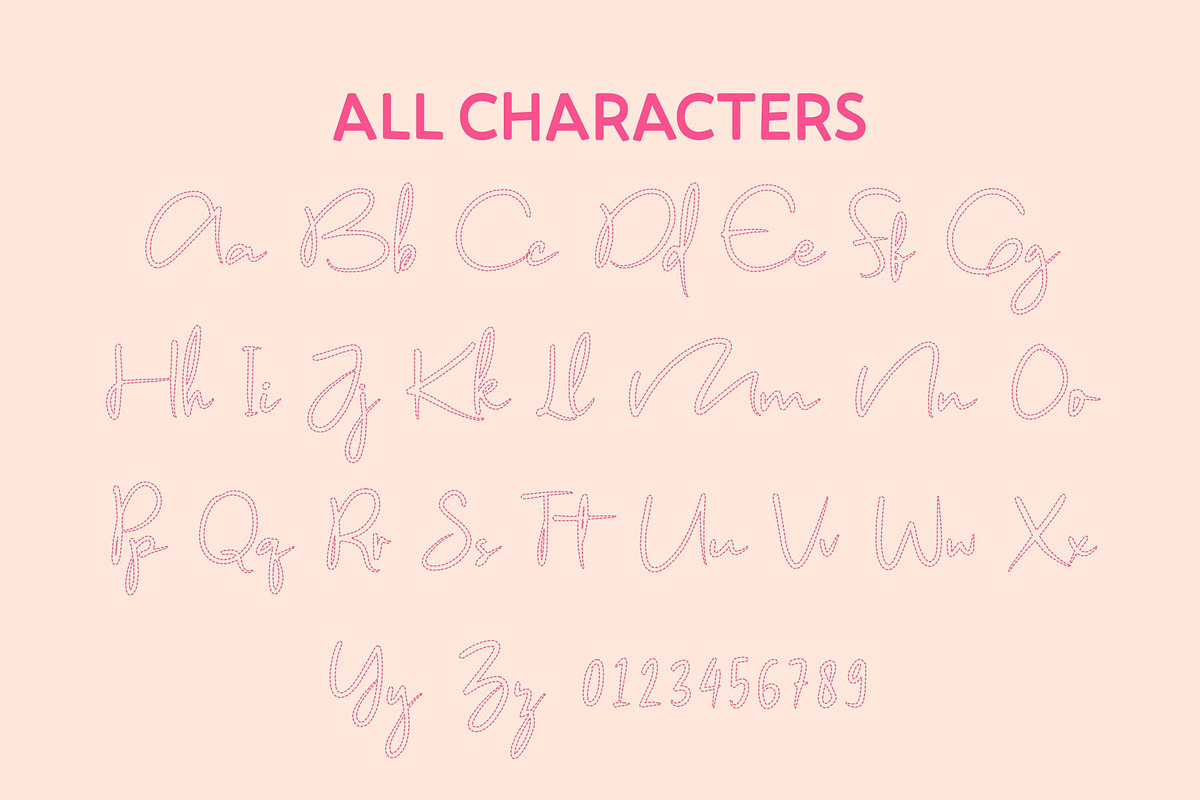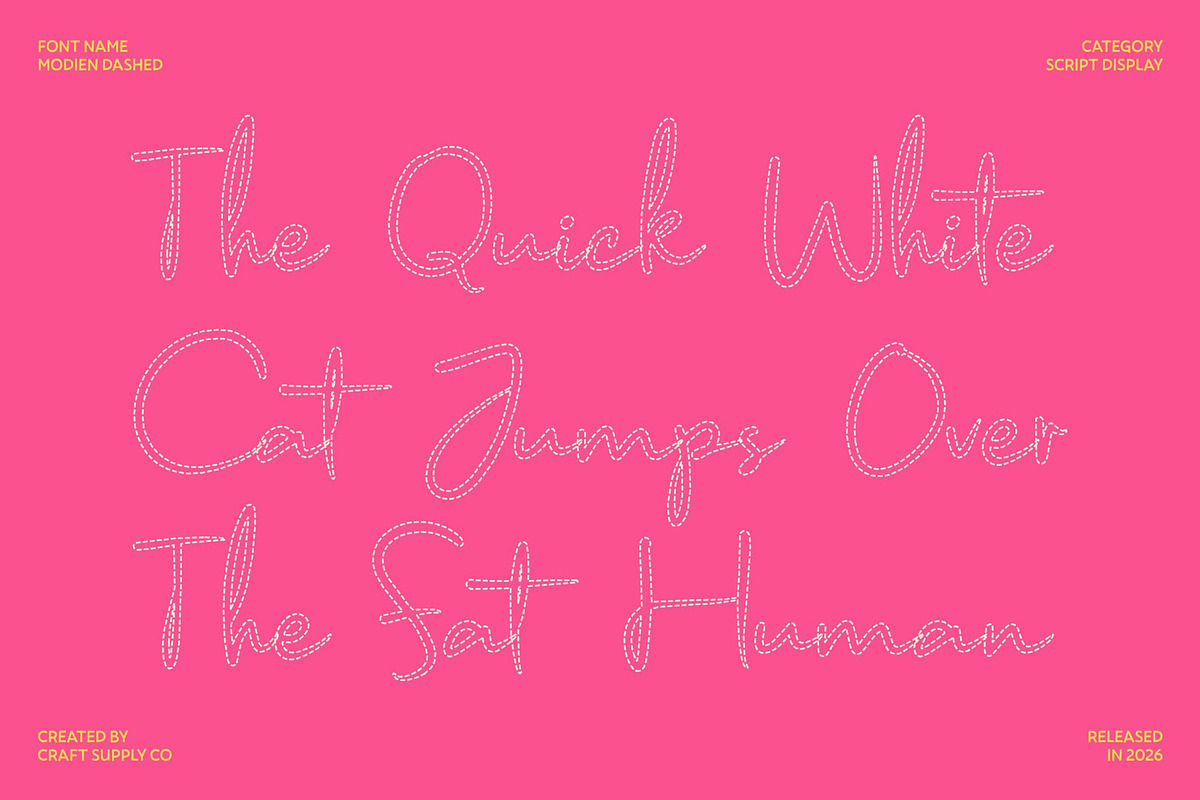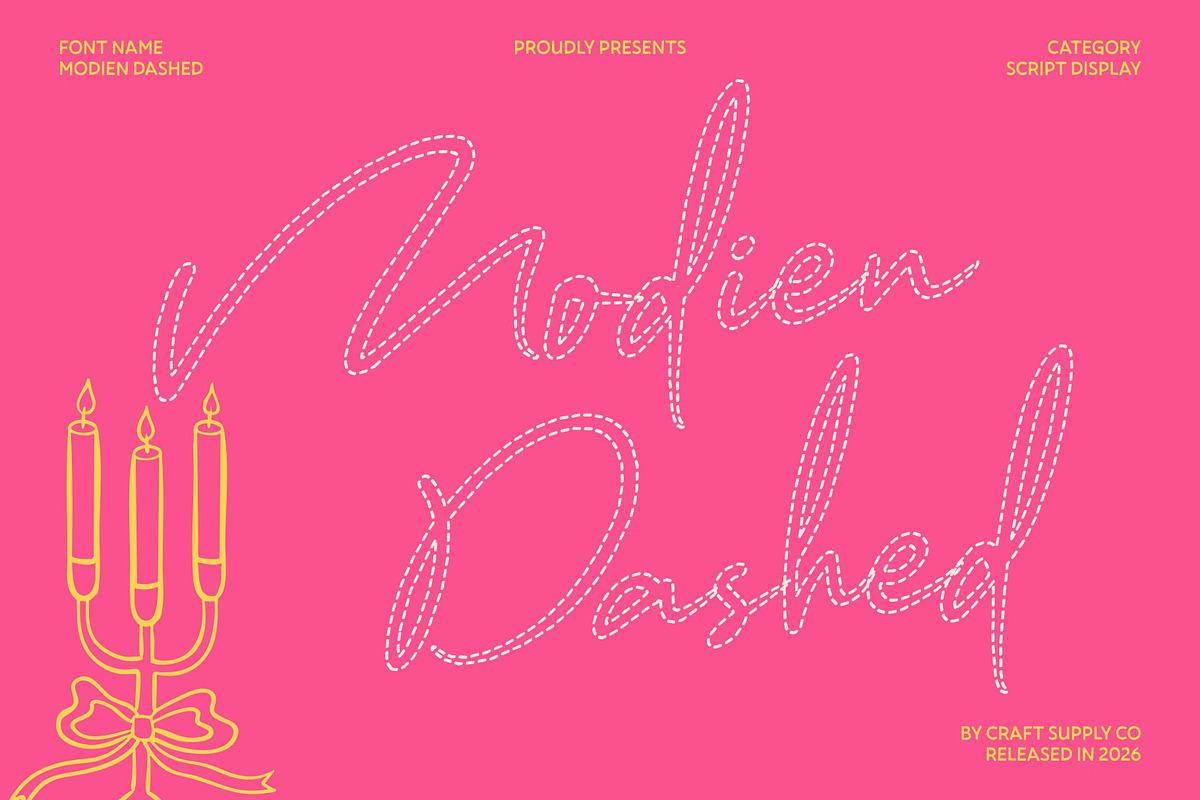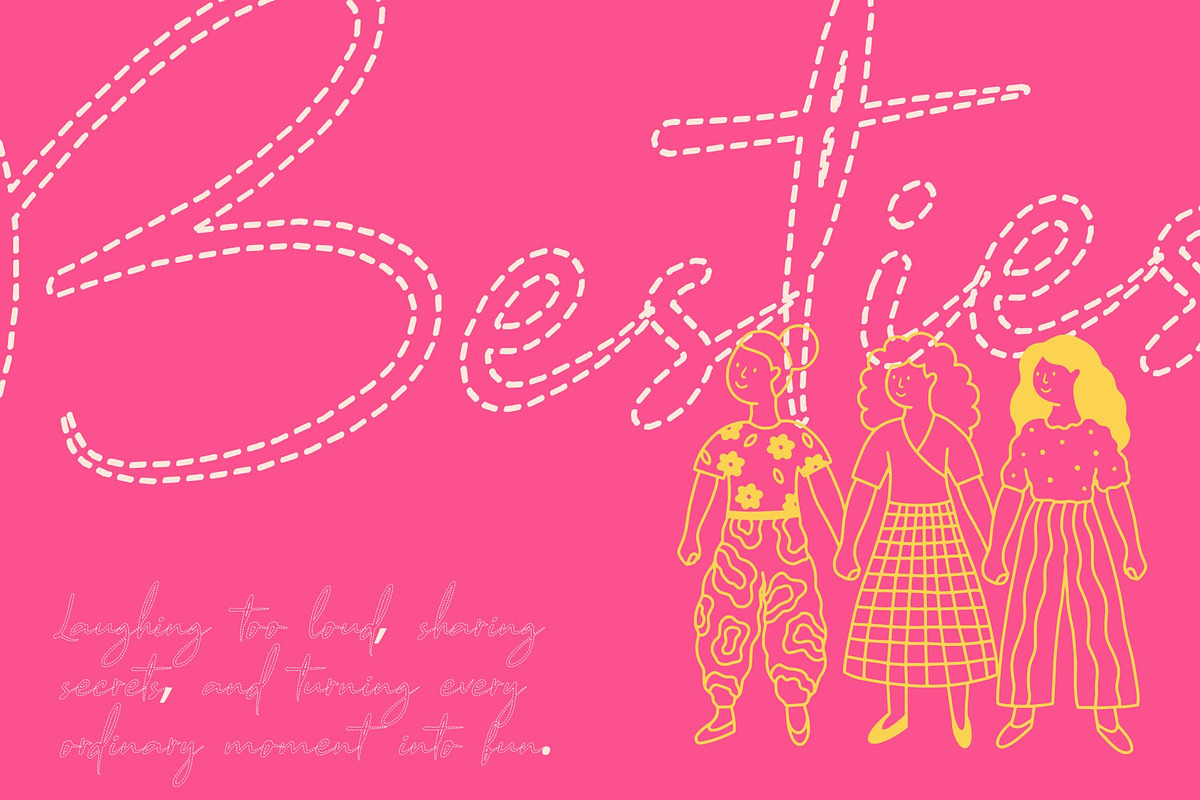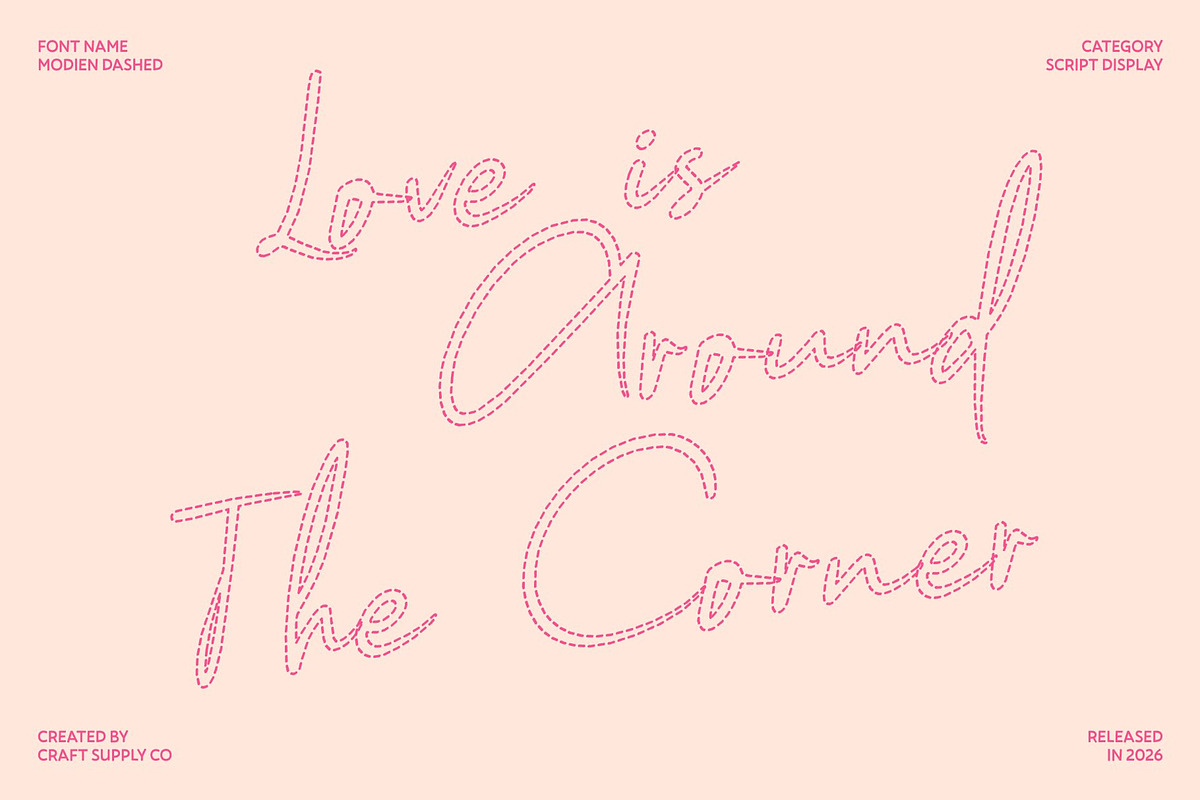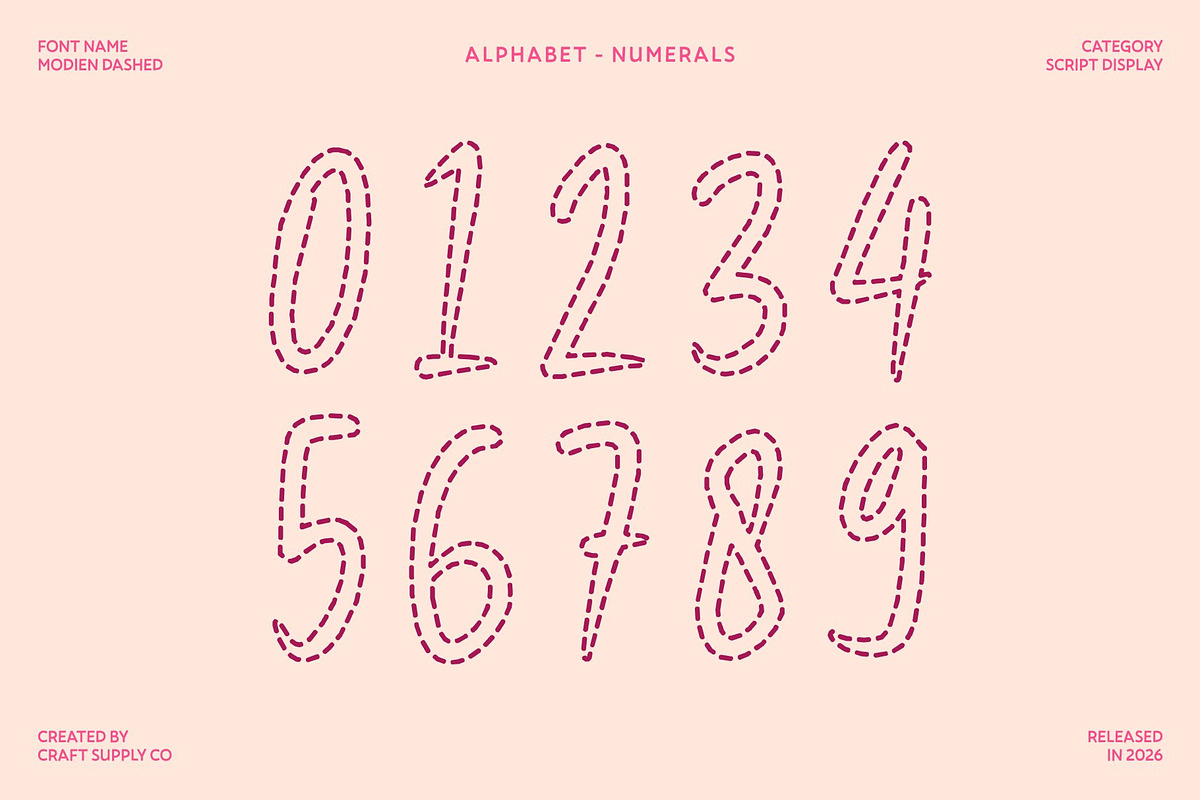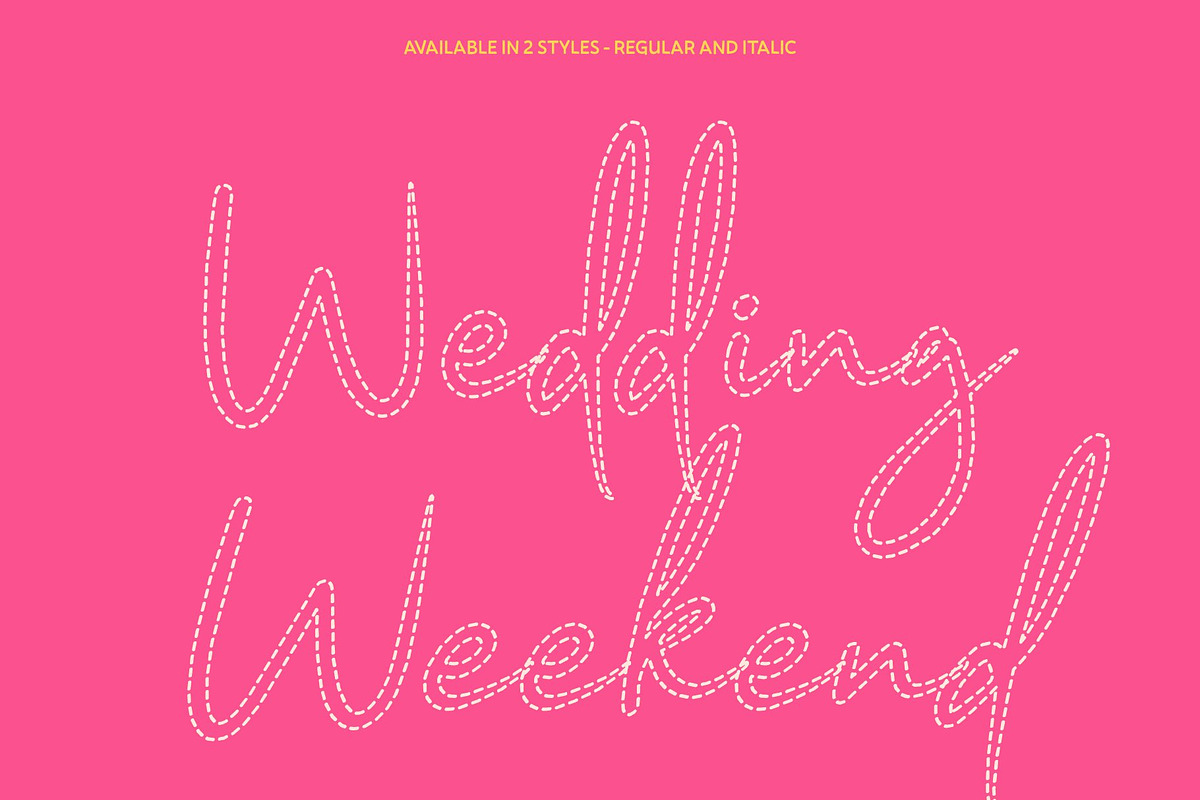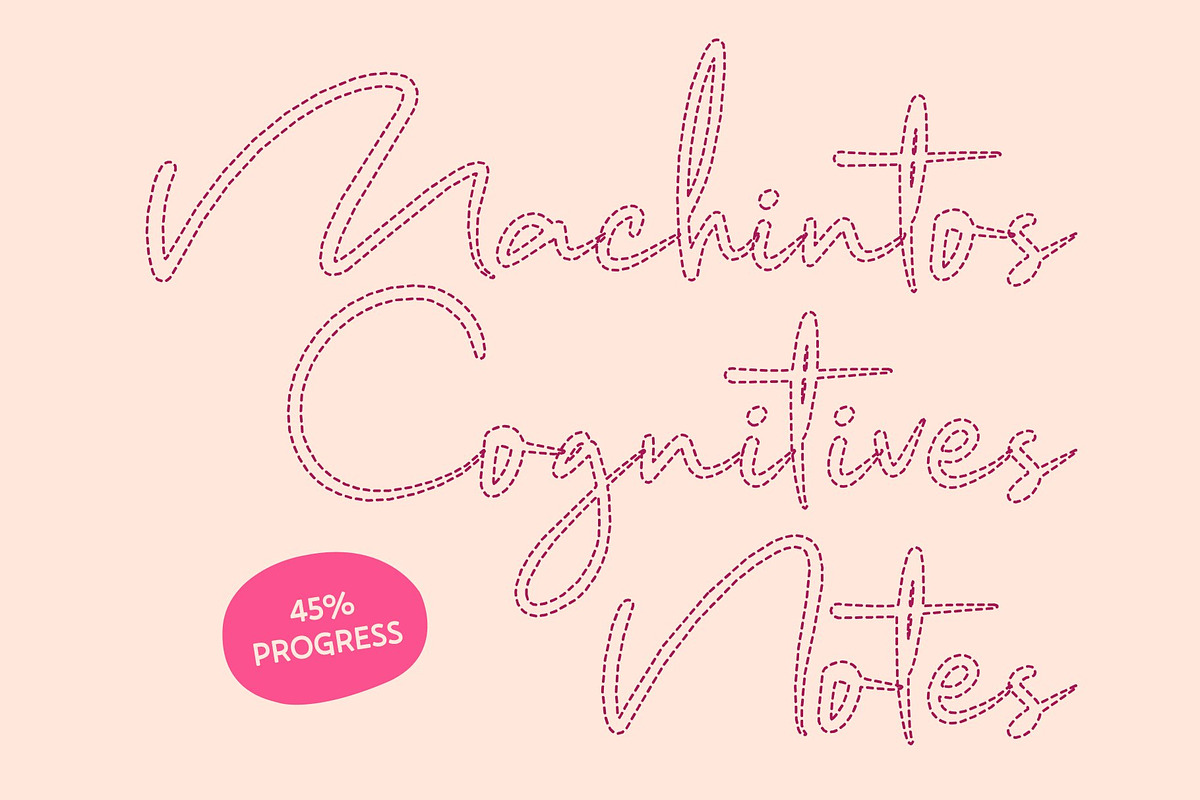
Modien Dashed
Modien Dashed – Stylish Handwritten Font
Authentic Handwriting with Modern Elegance This is a stylish handwritten script font inspired by the natural expression of real handwriting. Its smooth strokes and organic flow create a warm, personal feel while maintaining a polished and contemporary appearance, perfect for designs that aim to look chic and sophisticated.
Perfect for Fashion and Lifestyle Branding This font works beautifully for fashion labels, e-commerce brands, trend blogs, wedding boutiques, and businesses that want to present an upscale and stylish identity. Its refined handwritten style adds personality and elegance while remaining versatile and easy to use.
Versatile for Creative and Promotional Designs This font is ideal for logos, greeting cards, quotes, posters, branding materials, name cards, stationery, design titles, blog headers, art quotes, and typography artwork. The fluid script style enhances both digital and print layouts with a graceful and trendy touch.
Ideal for Hand-Drawn and DIY Inspired Projects Perfect for modern envelope lettering, watercolor themes, craft designs, book titles, and social media visuals, this font brings a fashionable handwritten aesthetic that makes any project feel beautiful, personal, and memorable.
Modien Dashed Regular
Modien Dashed Italic